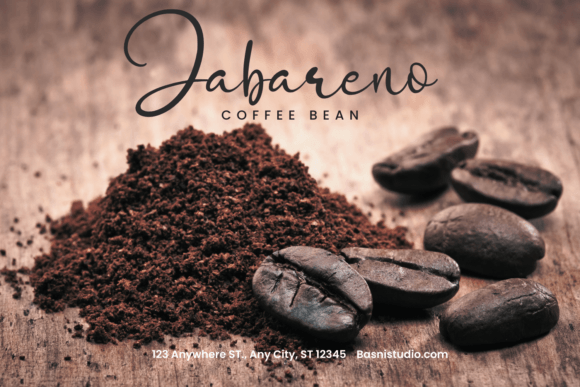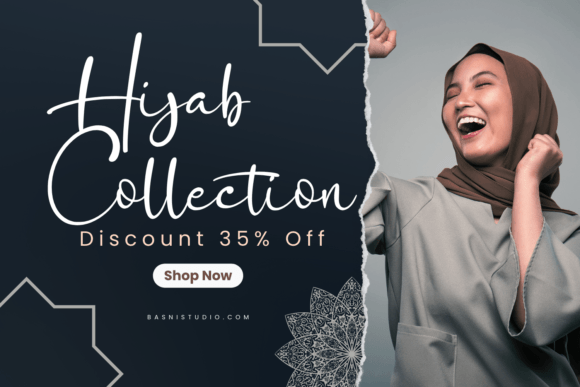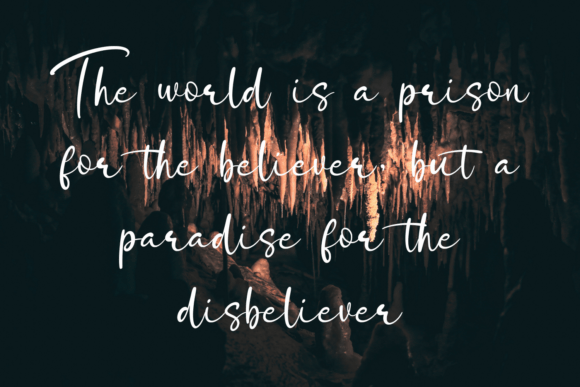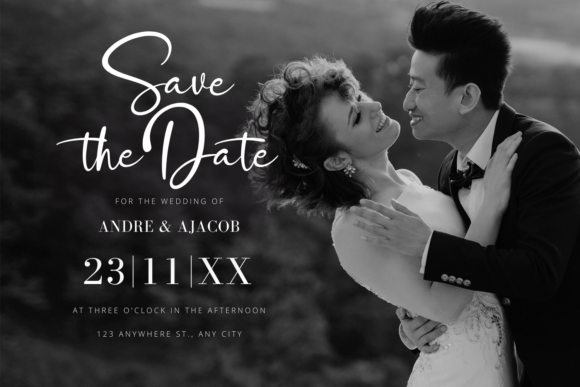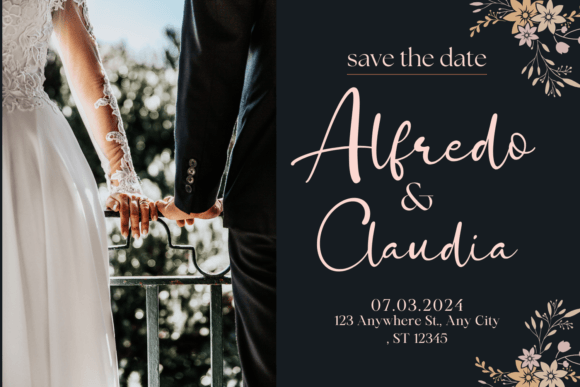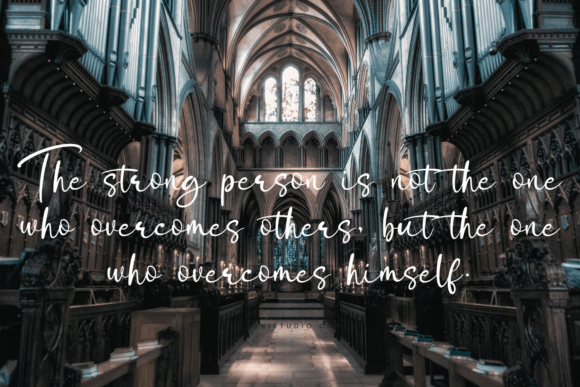
Unlocking the Beauty of Notredame Font
Have you ever found yourself staring at a blank page, searching for the perfect font to bring your creative project to life? The struggle is real, but it’s moments like these that make us appreciate the beauty of a well-crafted font. For designers, the right font can be the difference between a mediocre design and a masterpiece.
That’s where Notredame Font comes in – a high-quality, handcrafted font that’s perfect for branding, websites, and editorial designs. With its transparent background and precise details, this design resource is a valuable addition to any creative’s toolkit. Whether you’re working on a free download or a paid project, Notredame Font is sure to impress.
With its multilingual support, punctuation, and binding, Notredame Font is a comprehensive solution for designers who demand the best. And with OpenType support, you can easily access all the features and characters you need to bring your creative vision to life.
Key Features of Notredame Font
- High-quality font design ideal for creative projects and presentations.
- Features a transparent background, allowing for seamless integration with various backgrounds.
- Unique, elegant design suitable for a wide range of creative projects, from invitations to business presentations.
Honest Review: Notredame Font
I recently had the chance to work with the Notredame Font, and I must say it’s a high-quality design resource. This font is perfect for any creative project that requires a touch of elegance and sophistication.
One of the standout features of the Notredame Font is its transparent background. This makes it easy to work with, as it won’t add any unnecessary bulk to your design.
Here are some of the things that work well with the Notredame Font:
- It’s highly versatile and can be used for a variety of projects, from logos to brochures.
- The Notredame Font is well-designed and easy to read, making it a great choice for any creative project.
- The font may not be as suitable for modern or trendy designs, as it has a more classic feel.
- The Notredame Font may not be as widely supported as some other fonts, so be sure to test it thoroughly before using it in a live project.
Overall, I’m impressed with the Notredame Font. It’s a solid choice for any designer looking for a high-quality font that’s easy to work with. Just be aware of its limitations, and you’ll be well on your way to creating beautiful designs with this font.
Notredame Font Overview
The Notredame Font is a high-quality design resource ideal for creative projects. This font features a unique aesthetic with a transparent background, making it perfect for layered designs.
Tips for Getting the Most Out of Notredame Font
To get the most out of the Notredame Font, try layering it with other fonts or using it in combination with bold or italic text.
The Notredame Font is perfect for:
- Designing invitations and event materials.
- Creating marketing materials and brochures.
- Developing branding and logo designs.